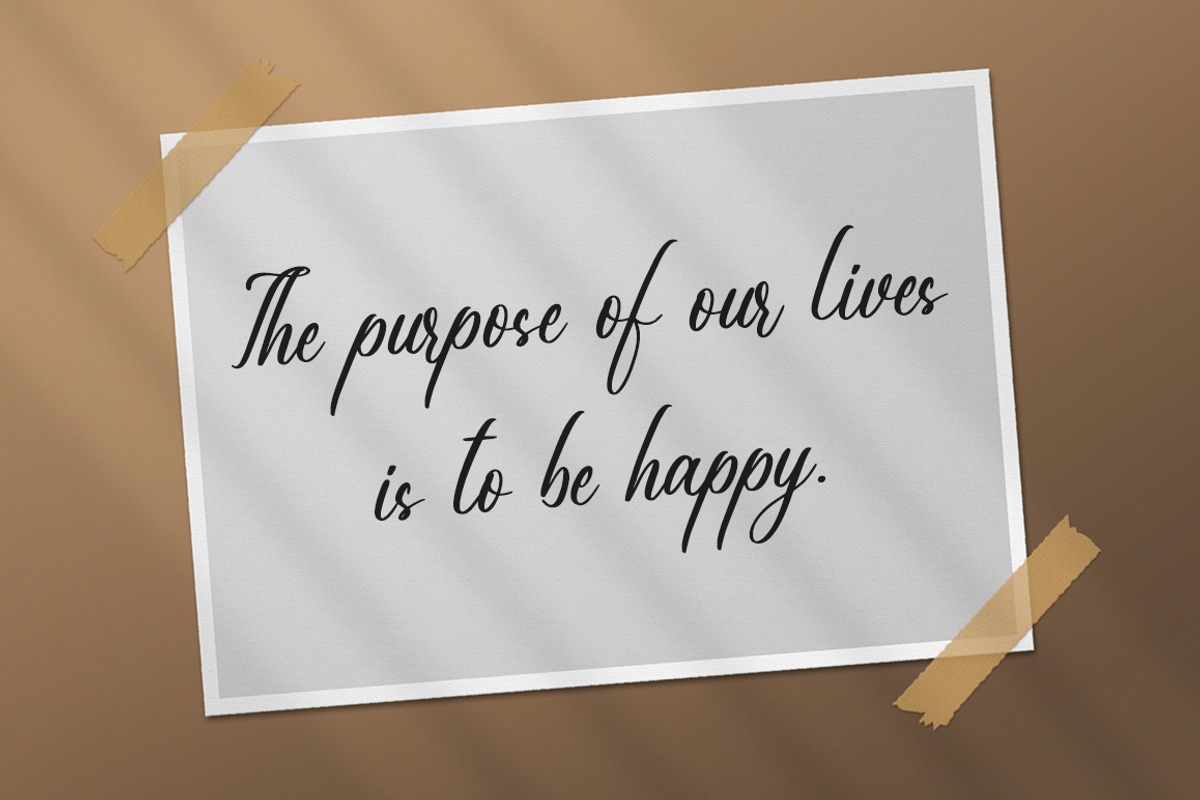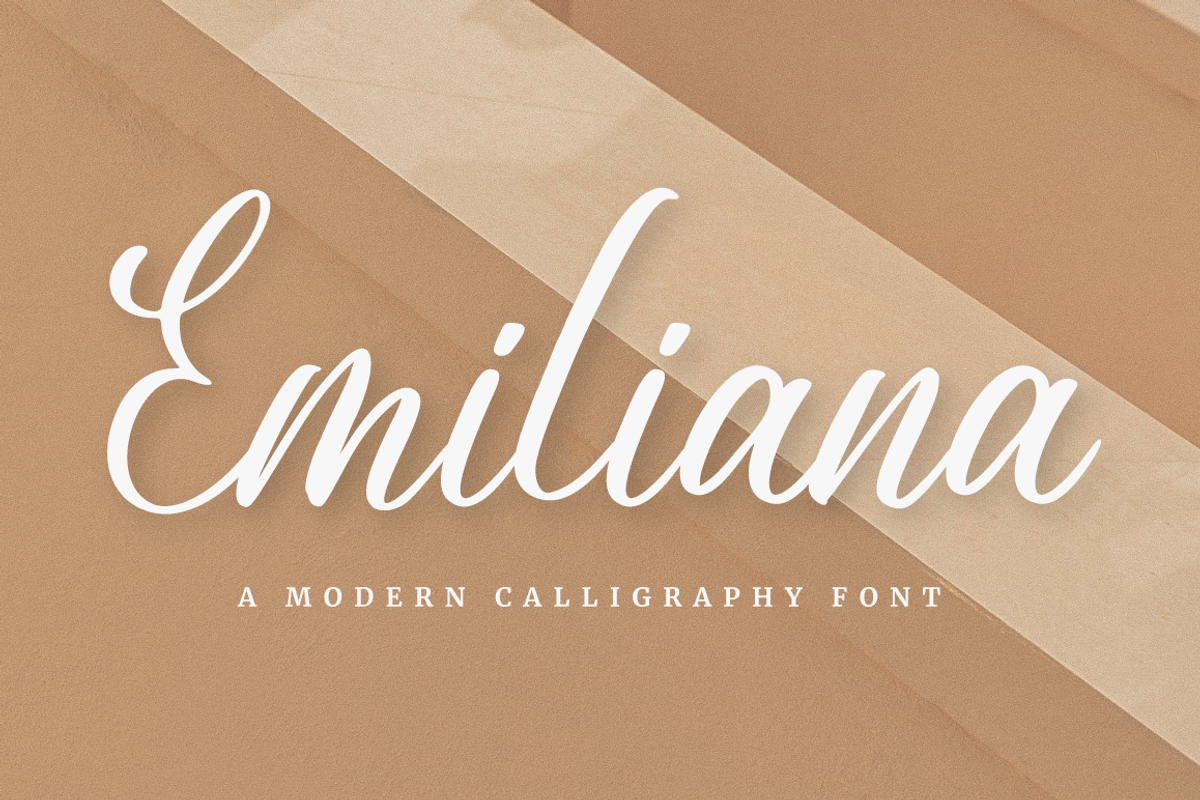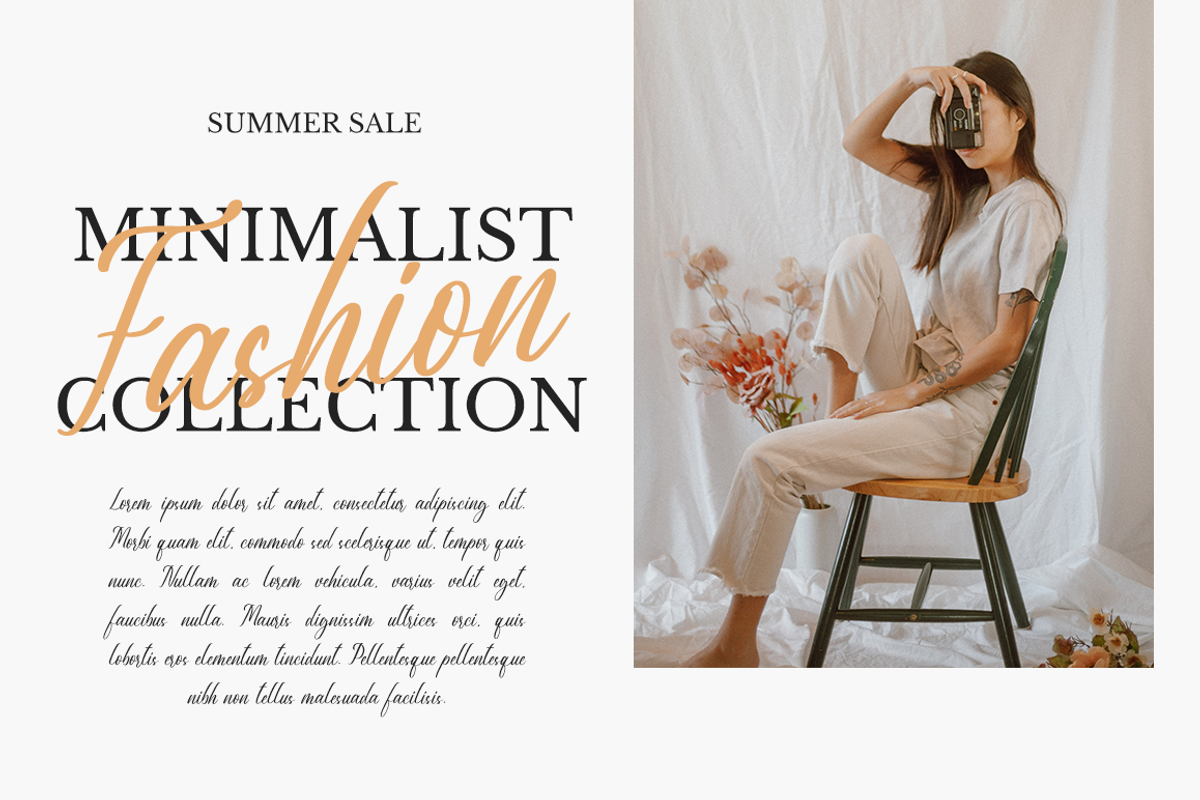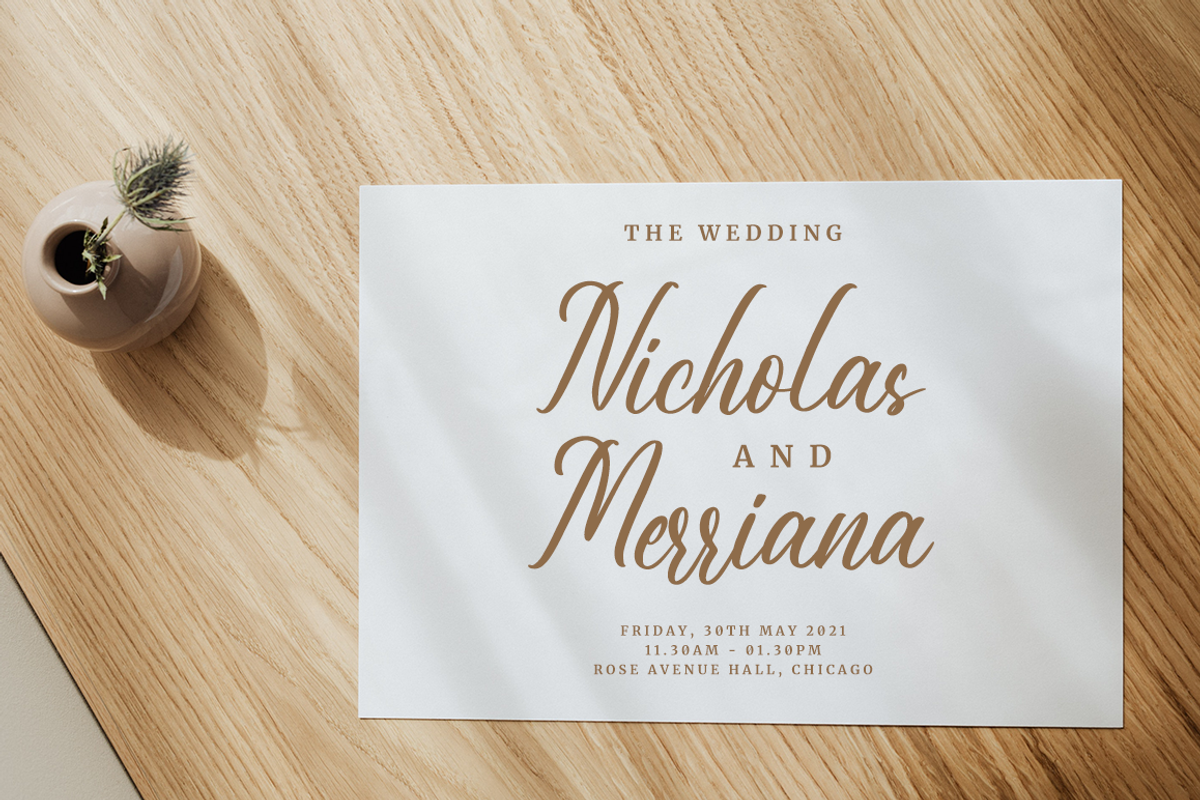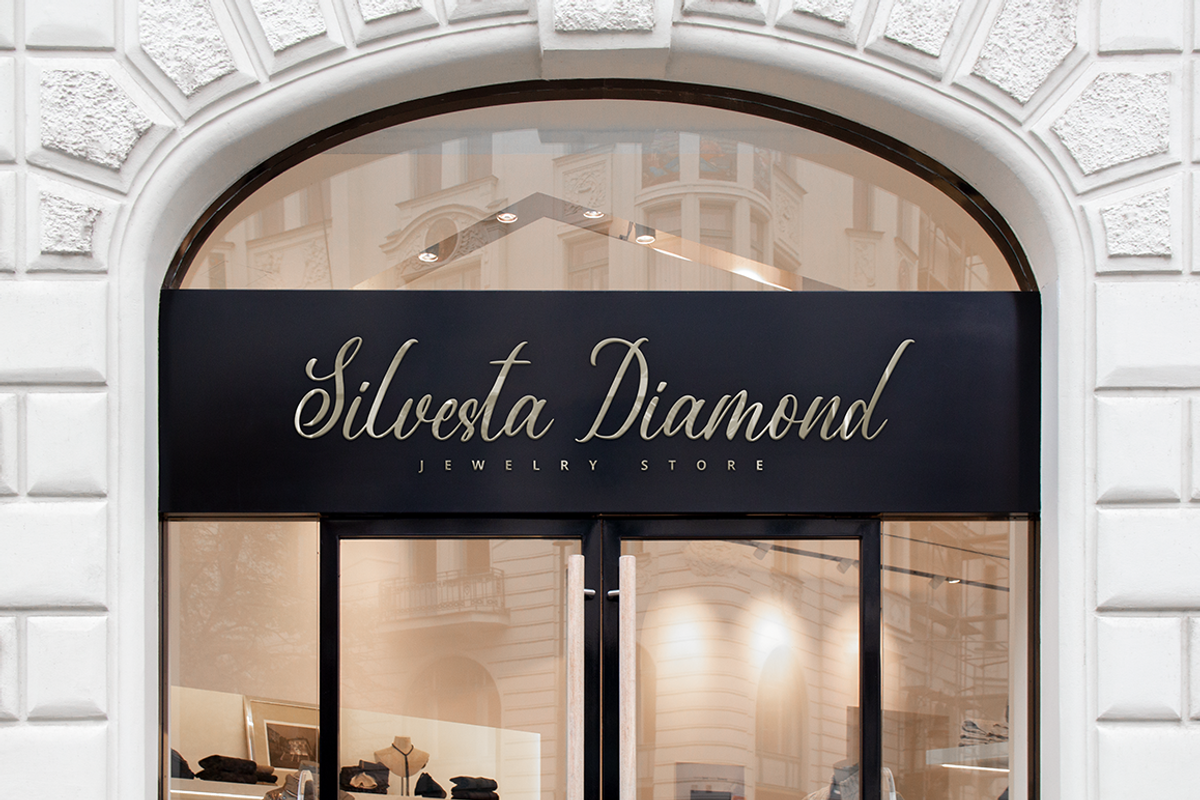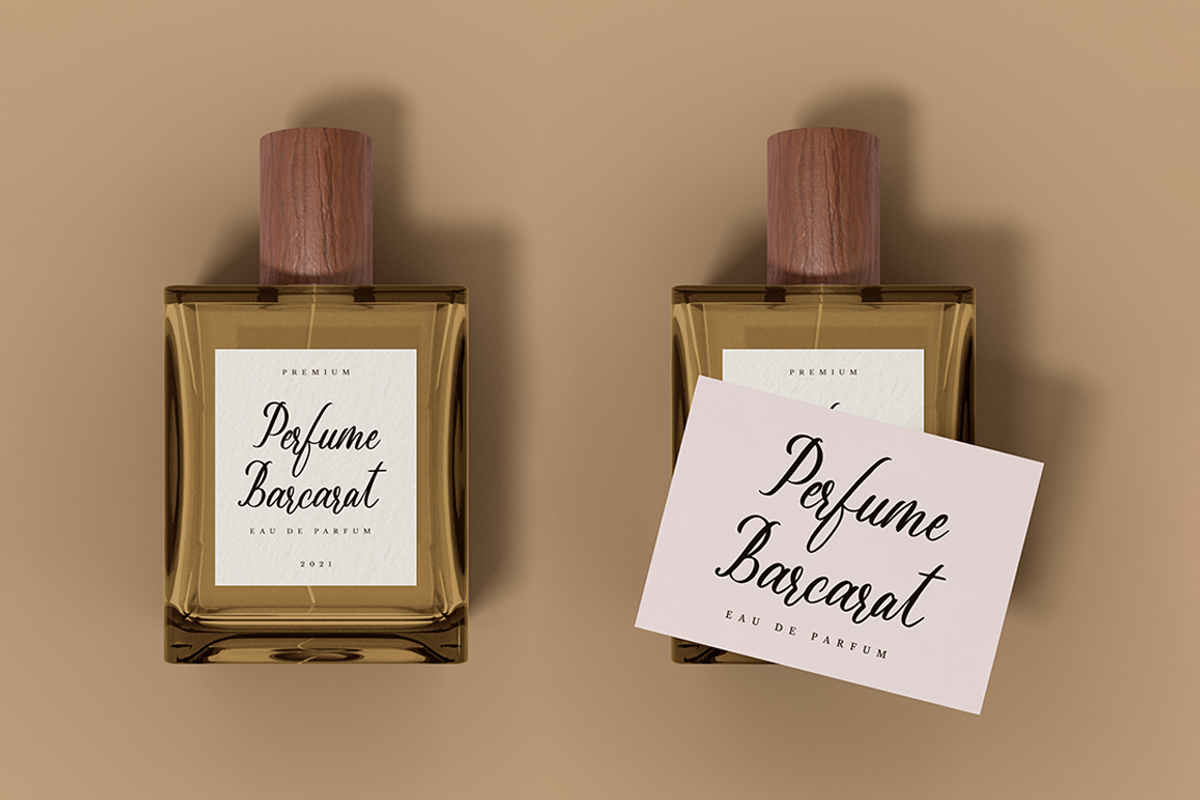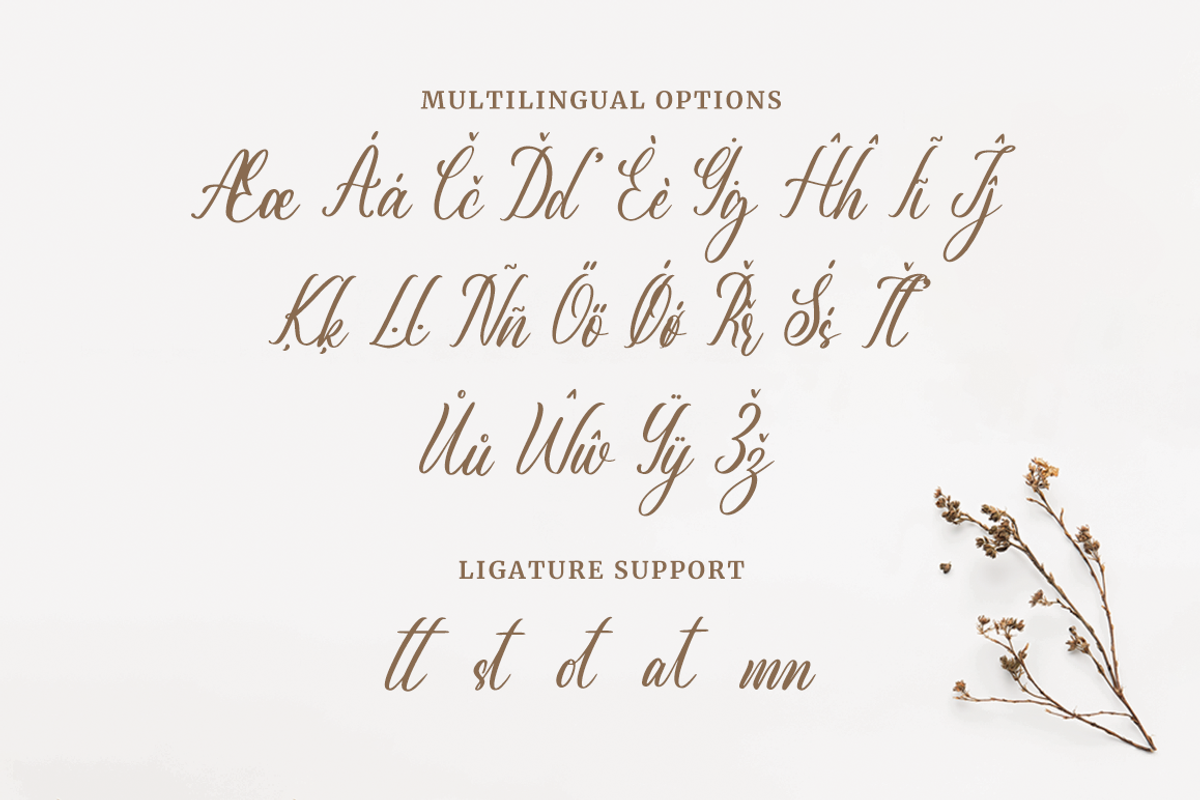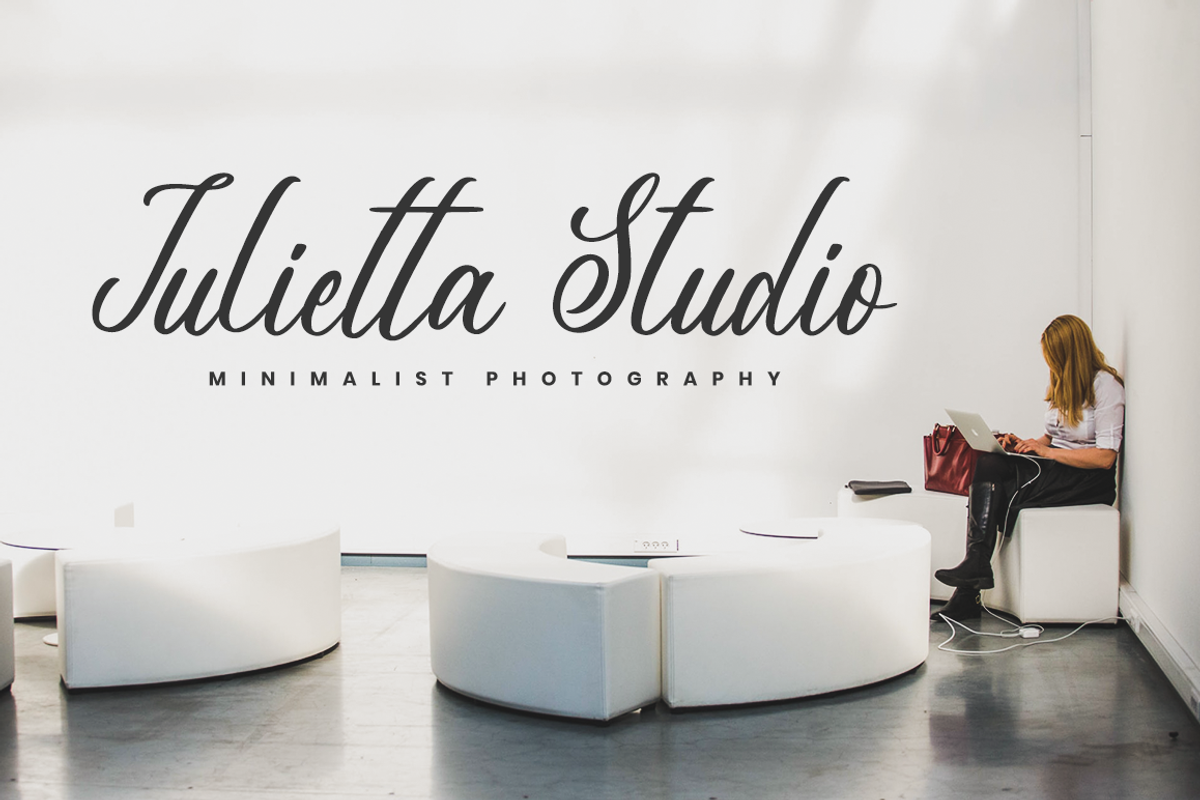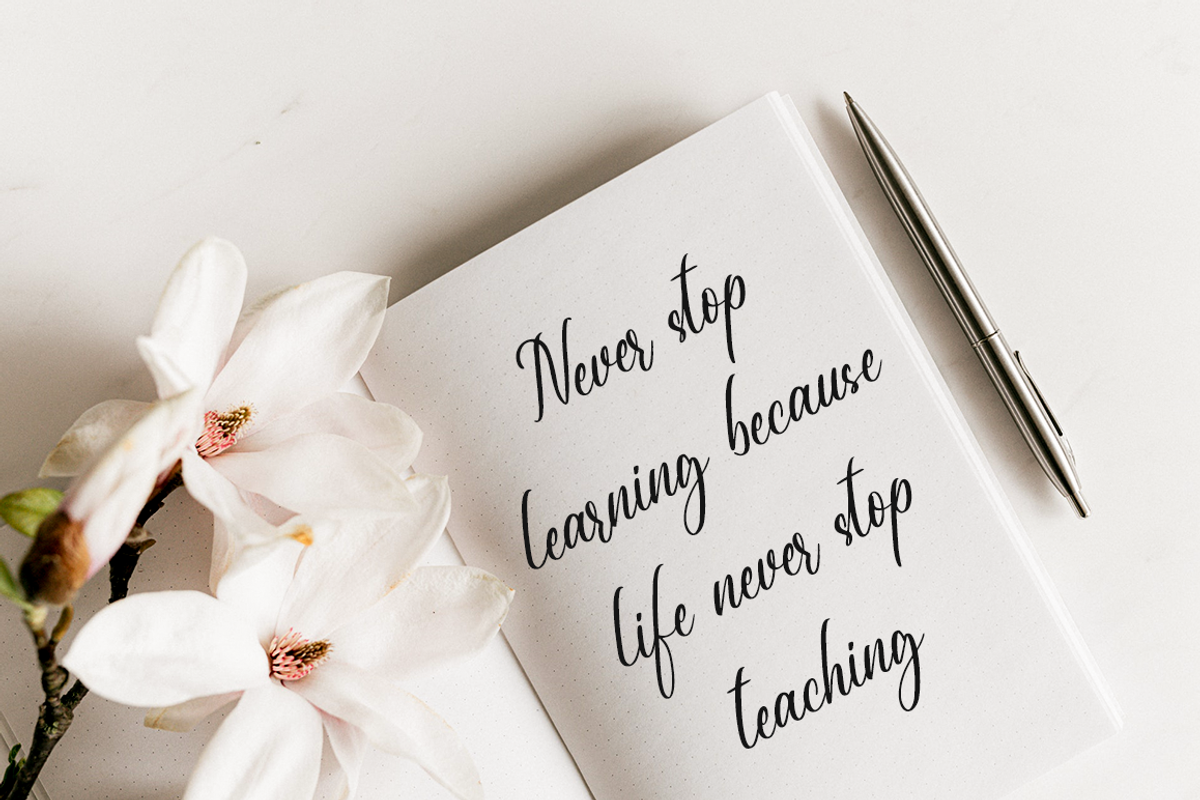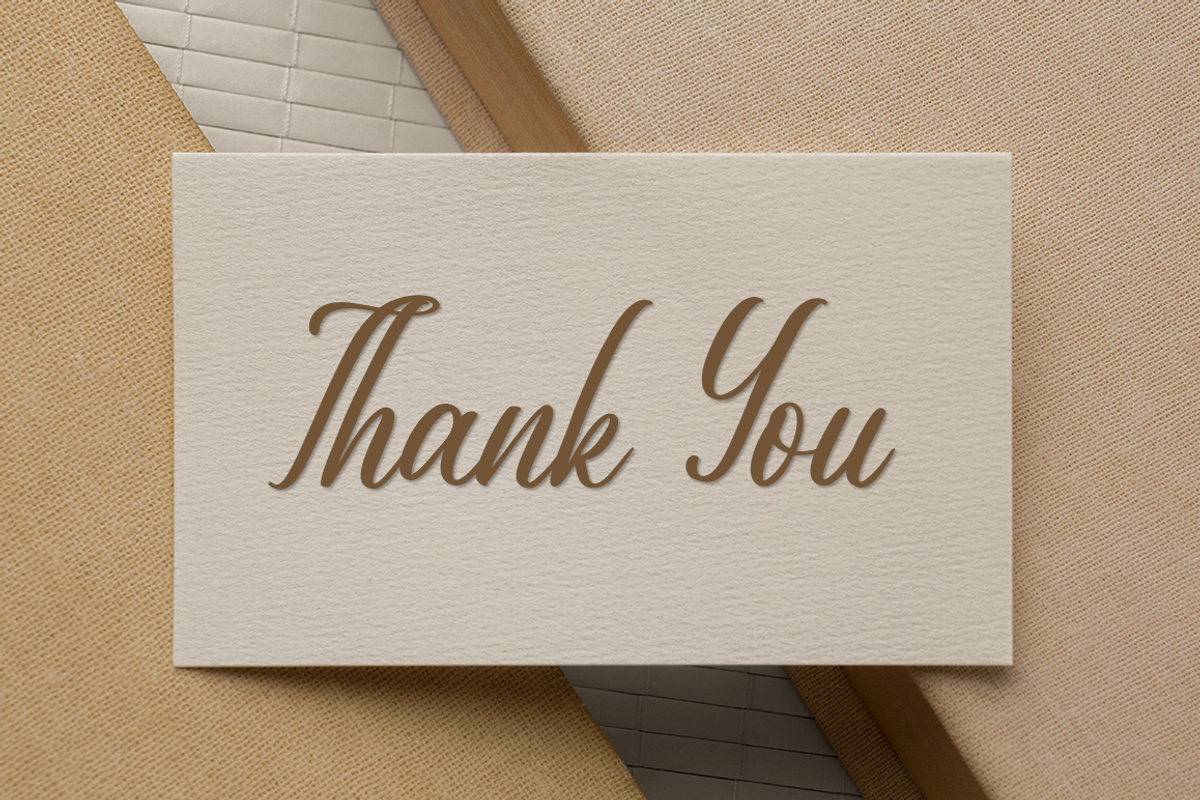
Emiliana a Modern Calligraphy Font
Emiliana is a delicate, elegant and flowing handwritten font. It has beautiful and well balanced characters and as a result, it matches a wide pool of designs. Fall in love with its incredibly versatile style and use it to create spectacular designs!